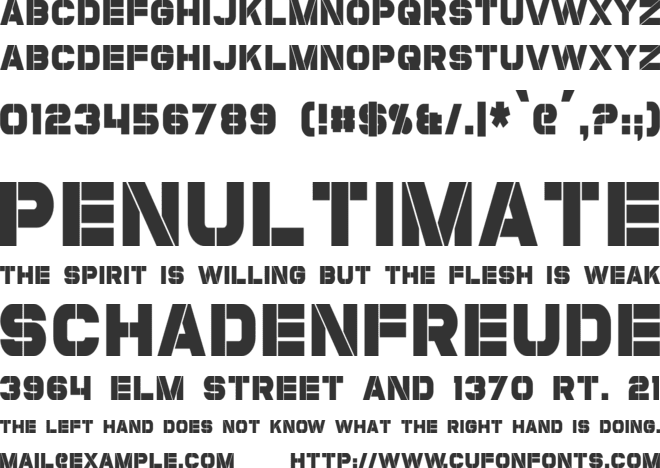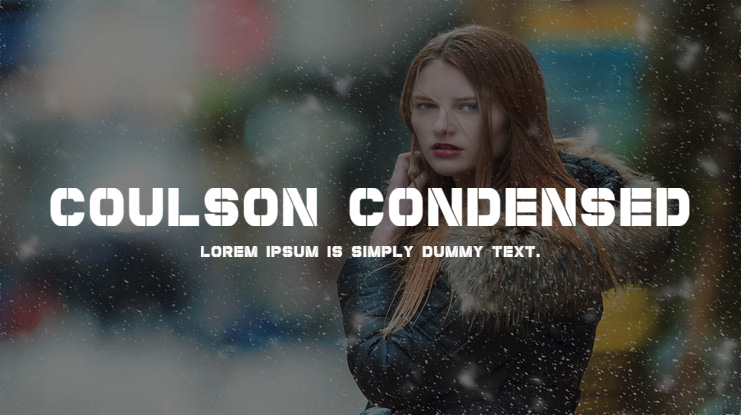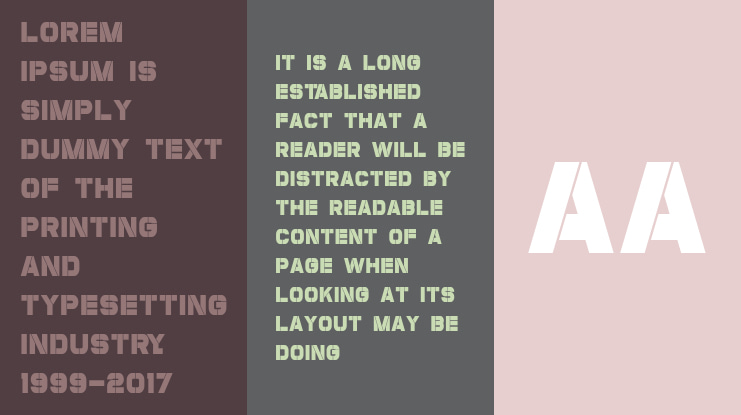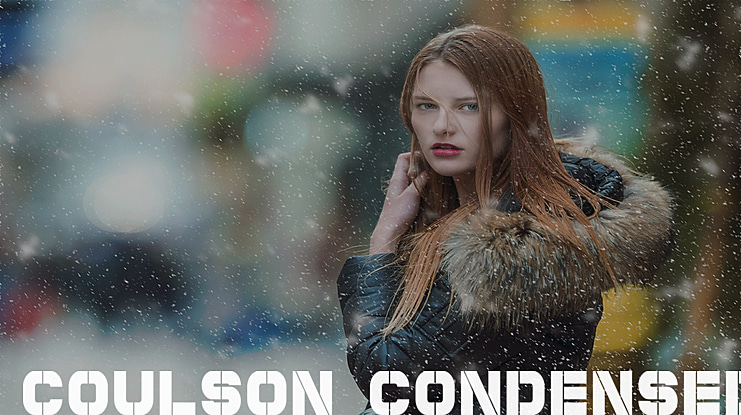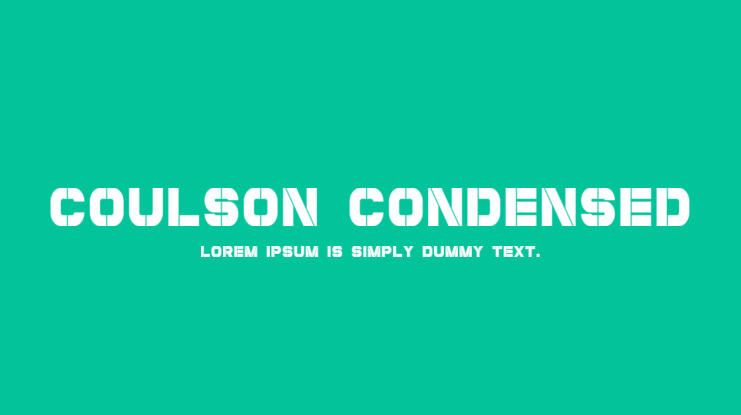
Coulson Condensed Font Family
Neale Davidson
Coulson is a thick, technical-looking stencil font based on the title logo of Marvel’s Captain America: The Winter Soldier movie and many, many other tie-in products. This font includes the full alphabet, numerals, and extended punctuation including the Euro. Includes regular, italic, condensed, and condensed italic versions.